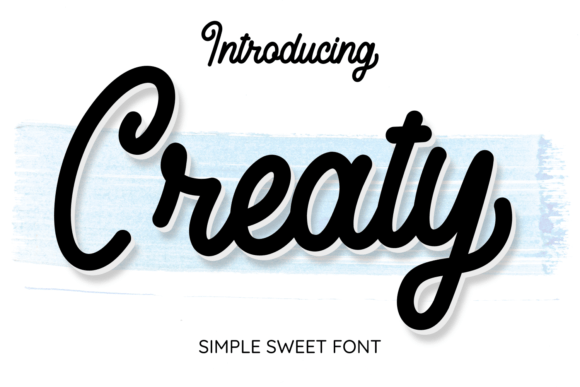
Welcome to the enchanting realm of Creaty Font, the script font that oozes joy and warmth. Picture yourself in a cozy abode, where love resides and cherished memories are made. Creaty Font is the perfect companion for your creative journey, adding a touch of whimsy and delight to every project. This font is more than just a collection of letters; it's an invitation to express your heartfelt emotions and paint the canvas of your imagination.
With Creaty, you can effortlessly create captivating designs that resonate with your audience. Whether you're a seasoned designer or just starting to explore the world of typography, Creaty will guide you like a trusted friend. Its elegant curves and playful strokes will breathe life into your words, evoking a sense of nostalgia and contentment.
Step into the world of Creaty and discover the limitless possibilities it holds. Add a personal touch to your wedding invitations, imbue your branding with a unique charm, or craft heartfelt messages that will touch the hearts of your loved ones. Let Creaty be your muse as you create designs that captivate and inspire.